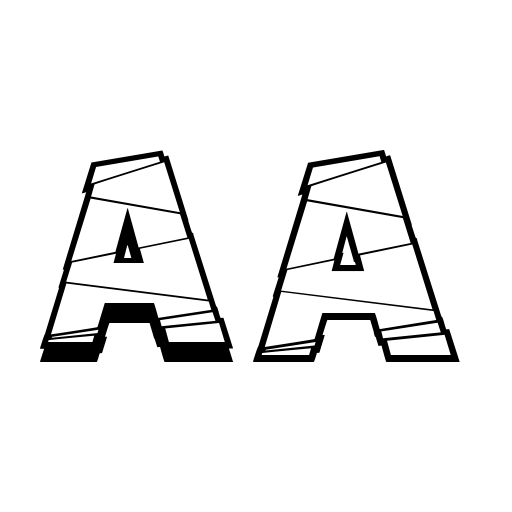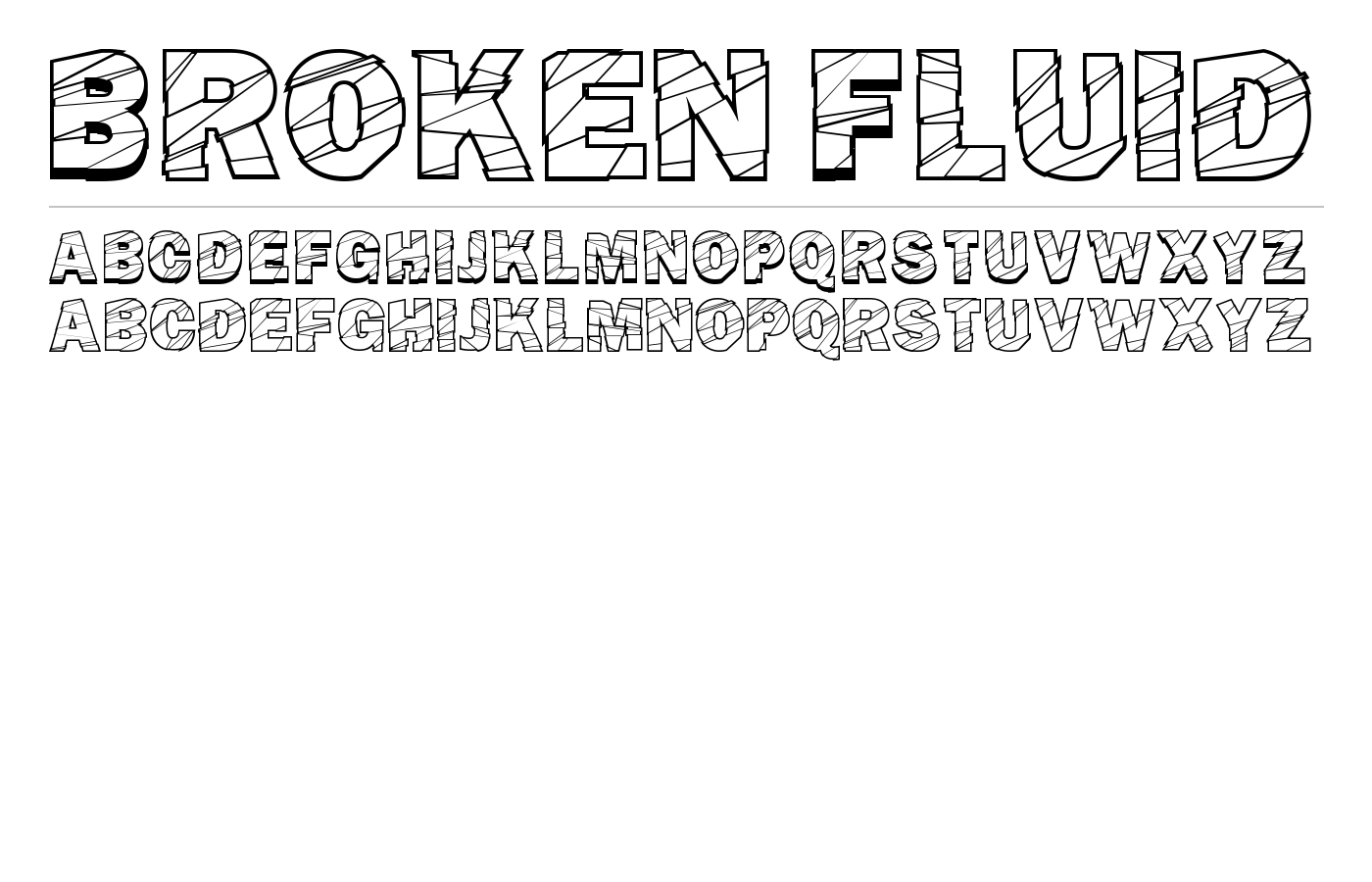
Broken Fluid is a bold, all-caps sans serif font characterized by its fragmented, sketch-like interior lines that create a dynamic, textured effect. Its solid geometric forms combined with the irregular, broken pattern convey a playful yet edgy personality, making it ideal for eye-catching headlines, posters, and creative branding that calls for a modern, artistic vibe. This distinctive display font works best where visual impact and originality are key, adding a unique twist to contemporary design projects.
Broken Fluid Font